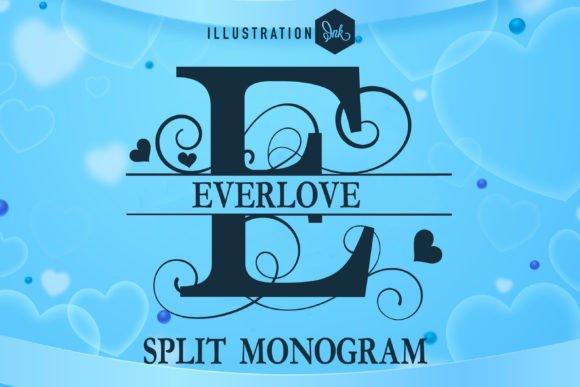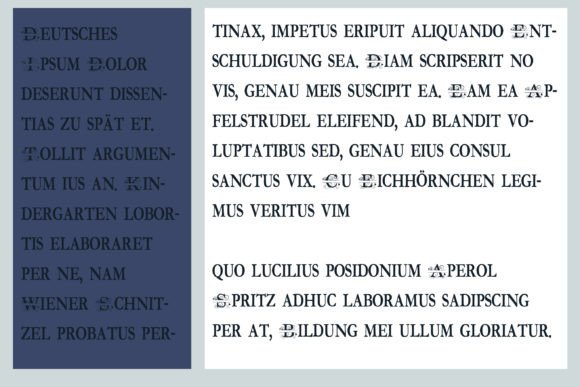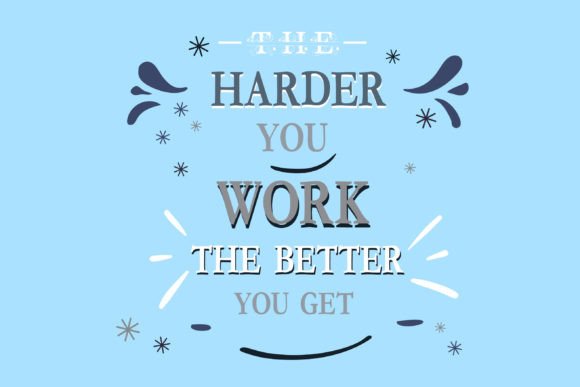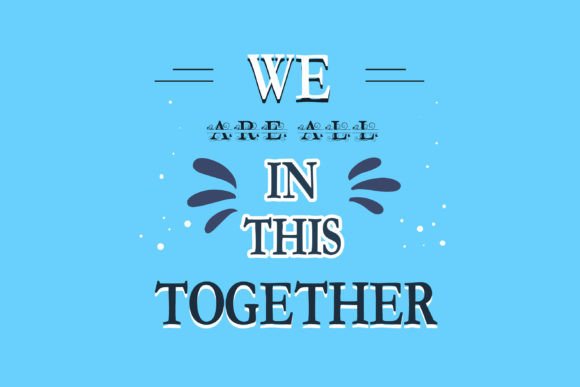
Everlove Split Monogram Font
About the Everlove Split Monogram Font
Crafted with precision, the Everlove Split Monogram Font is ready to bring your ideas to life. This split monogram font features an uppercase with a split banner. Use the lowercase to type words to place inside the banner while using a layout program of your choice. No matter the topic, this font will be an incredible asset to your fonts’ library, as it has the potential to elevate any creation.
Everlove’s strong, uppercase-centric design makes it ideal for headlines, logos, and short, impactful statements in branding materials and posters. It’s also well-suited for packaging where a bold, memorable monogram is desired. However, its limited character set and stylistic constraints make it unsuitable for body text or lengthy paragraphs, or UI elements requiring readability.
The font projects a confident and slightly playful personality. Its split monogram design adds a touch of vintage charm while maintaining a modern feel. This makes it perfect for brands seeking a balance between tradition and contemporary aesthetics.
For effective pairings, consider a clean sans-serif like Montserrat for body text, providing contrast and readability. Alternatively, a classic serif such as Playfair Display can add elegance and sophistication, while a script font like Great Vibes can enhance a more romantic or whimsical application.
Everlove Split Monogram Font Usage Examples
Everlove Split Monogram Font Example